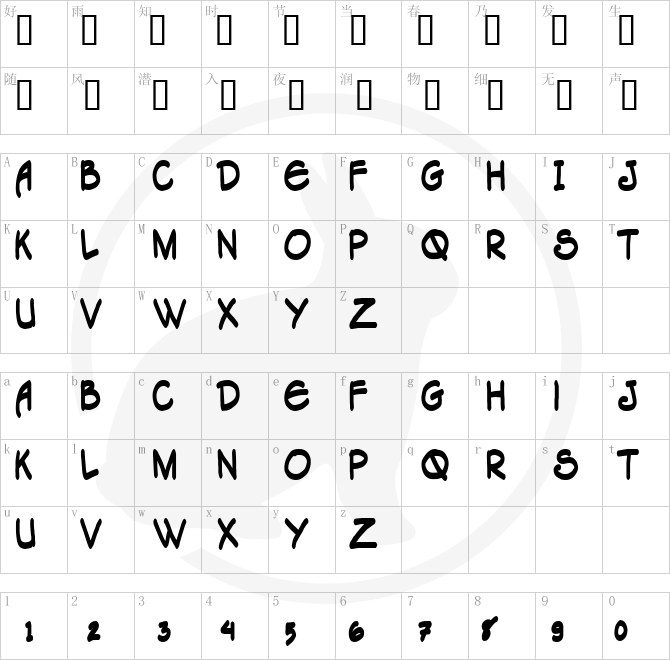
- Font Name:Tagapagsalaysay Caps (Narrator)
Tagapagsalaysay-Caps-Narrator-Bold.ttf is a very beautiful artistic font, Tagapagsalaysay-Caps-Narrator-Bold.ttf is widely used in the design and printing of various books and pictures,Tagapagsalaysay-Caps-Narrator-Bold.ttf has a strong visual impact,Tagapagsalaysay-Caps-Narrator-Bold.ttf is a commonly used font in newspapers, magazines and books, and is used in posters, e-commerce Poster design, store design, logo design, font design and other fields.Tagapagsalaysay-Caps-Narrator-Bold.